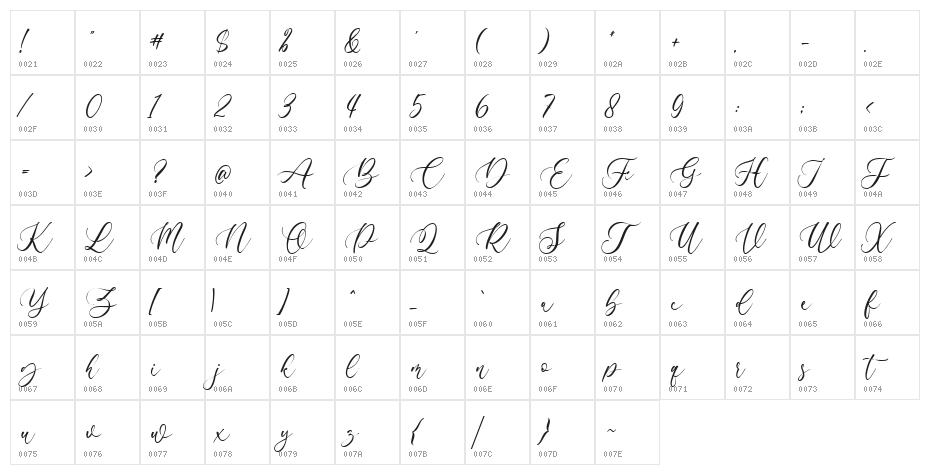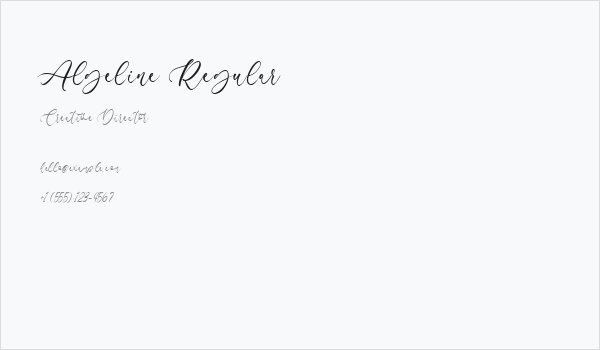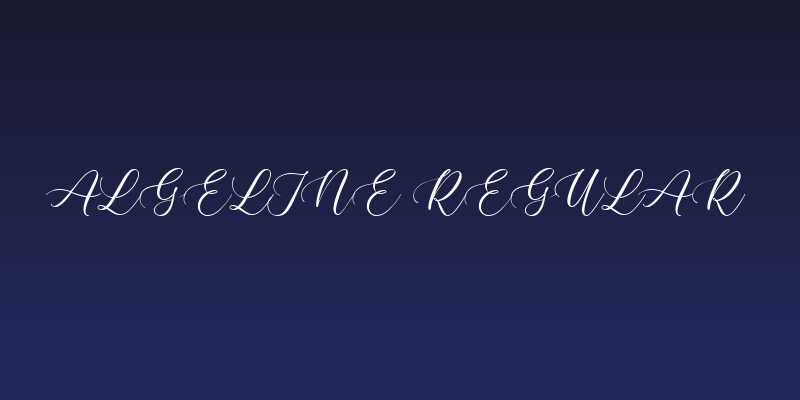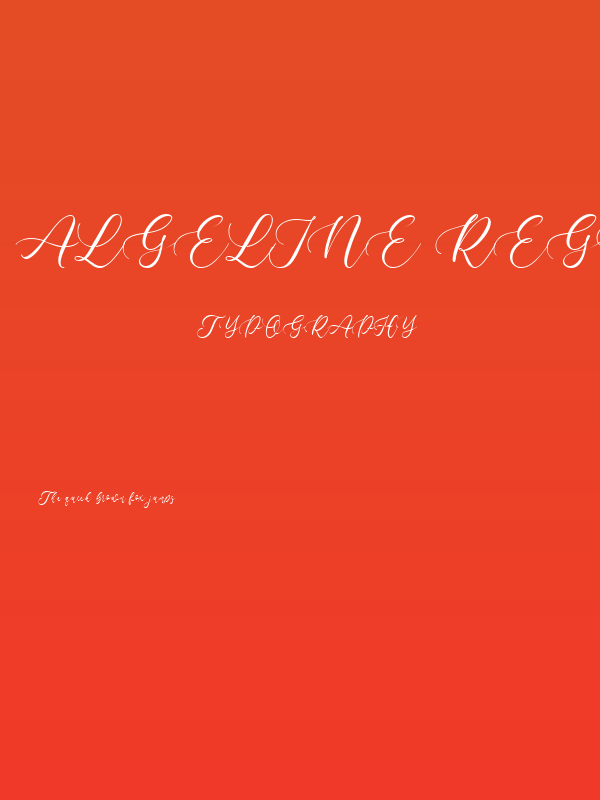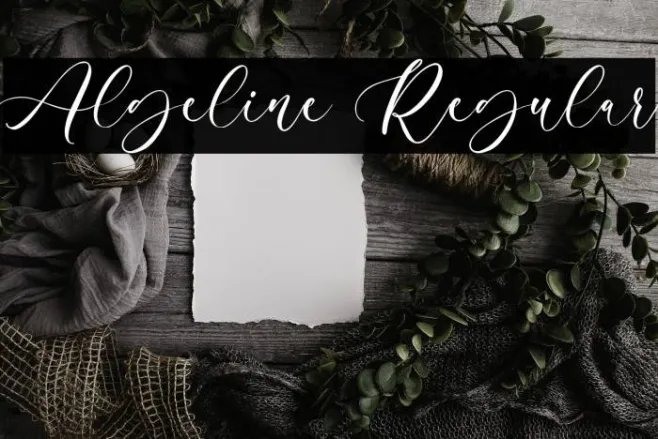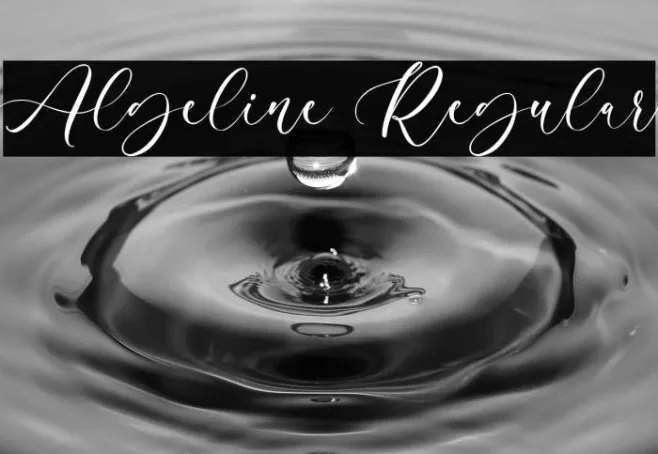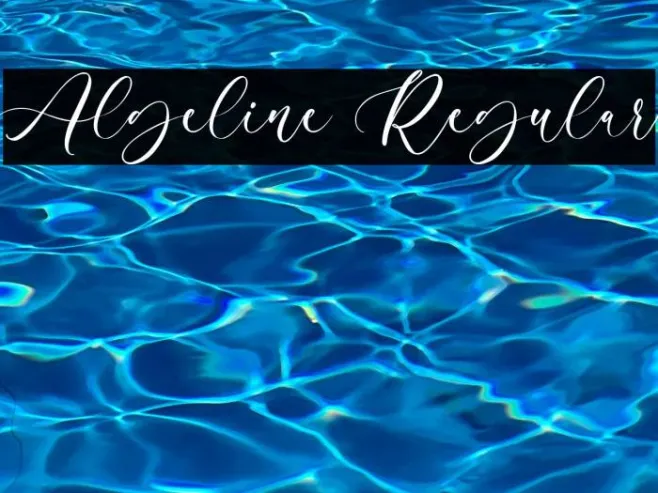
Algeline Regular Font
Algeline Regular Description
This font features an elegant and flowing script style, characterized by its graceful curves and fluid strokes. The uppercase letters are ornate, with intricate loops and swashes that add a touch of sophistication. The lowercase letters maintain a consistent flow, enhancing readability while retaining a decorative flair. The numerals are stylish and complement the overall script aesthetic. Special characters are thoughtfully designed, integrating seamlessly with the alphabet. This font exudes a sense of elegance and is perfect for projects that require a touch of class and refinement.
| Use Case | Headlines, Invitations, Branding |
| Proposed Projects | Ideal for wedding invitations, elegant branding, luxury product packaging, and sophisticated stationery. |